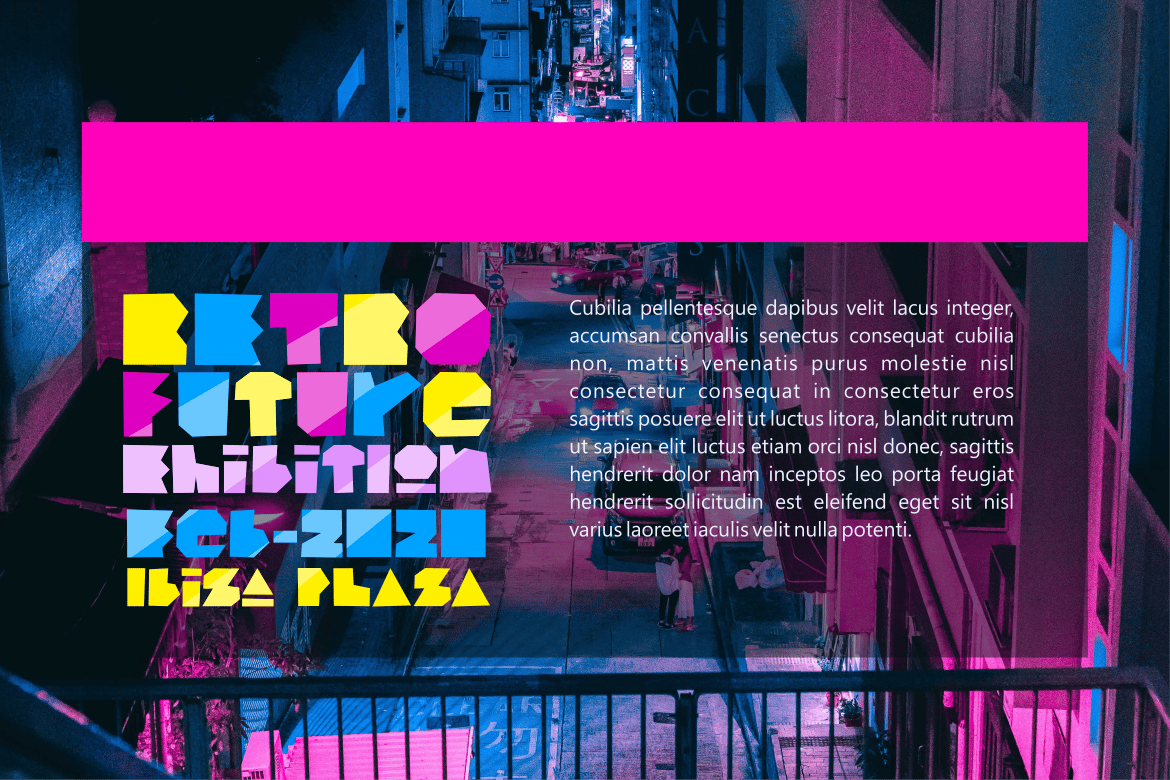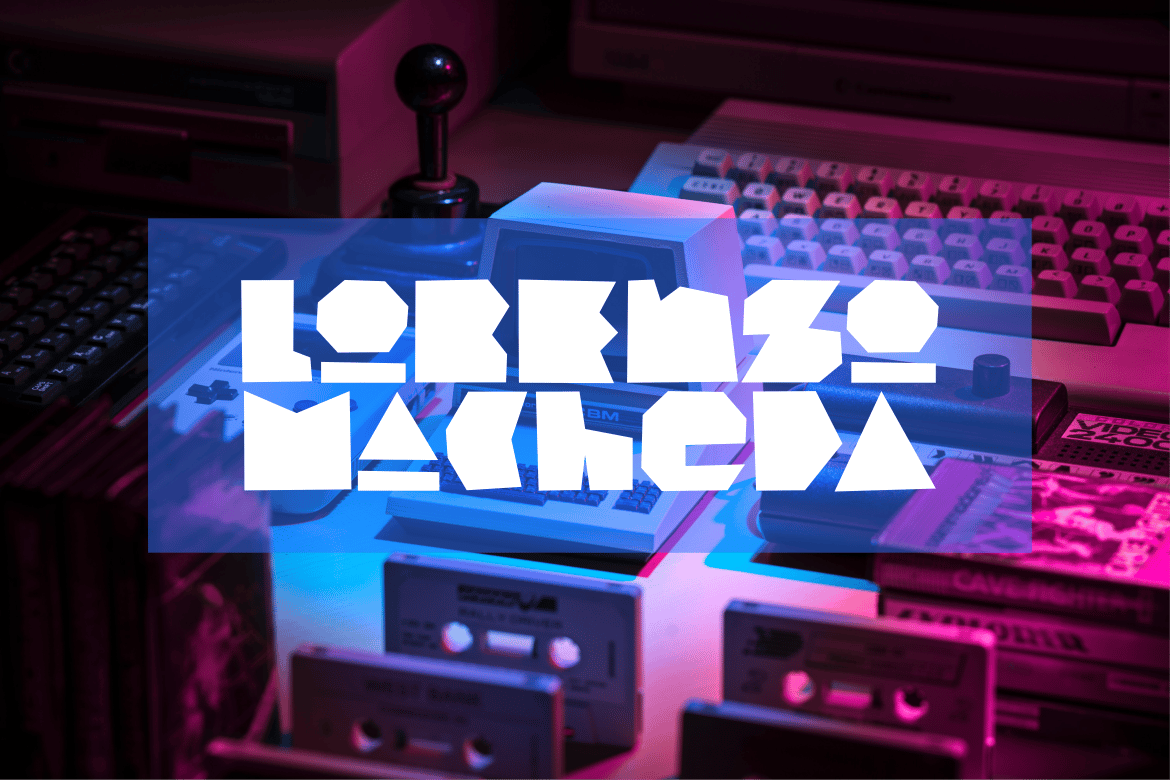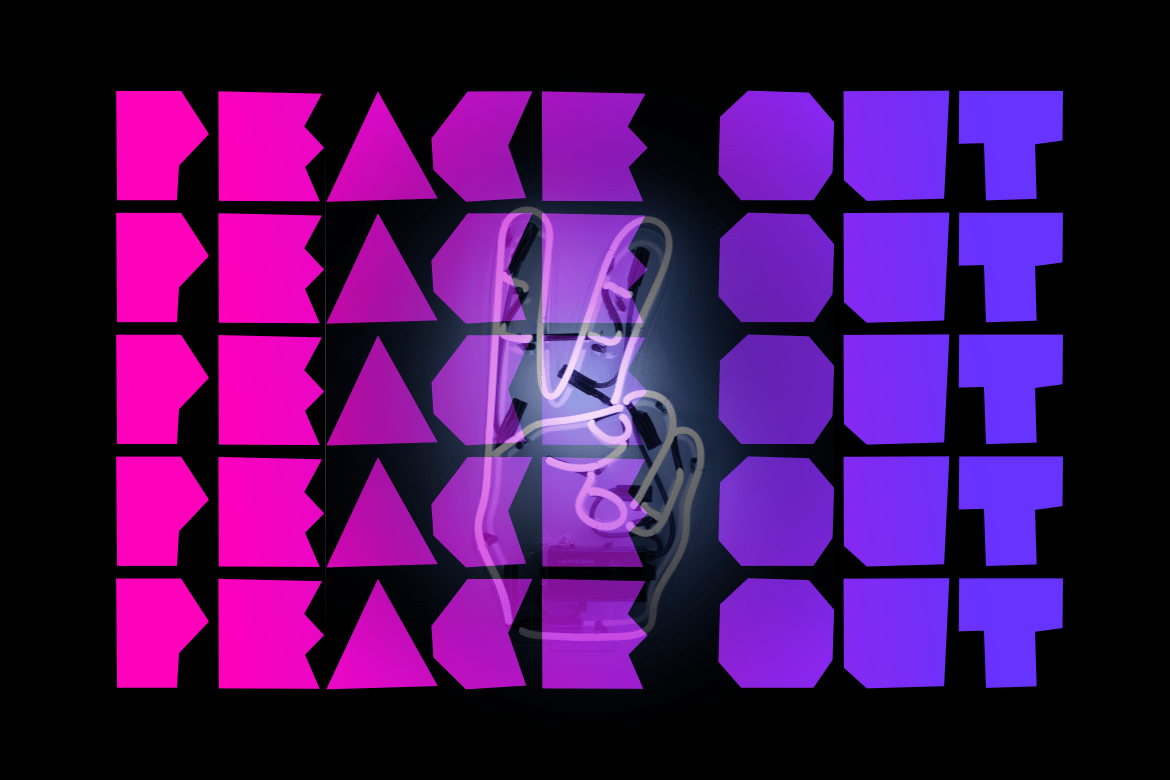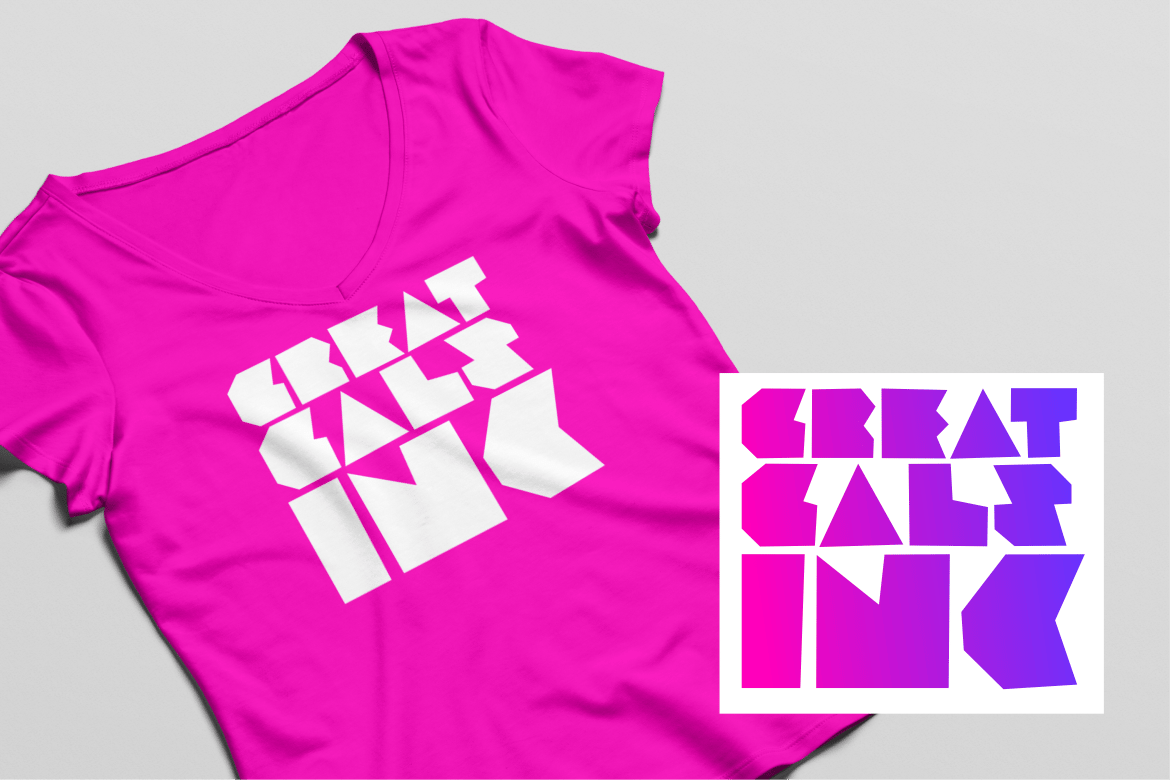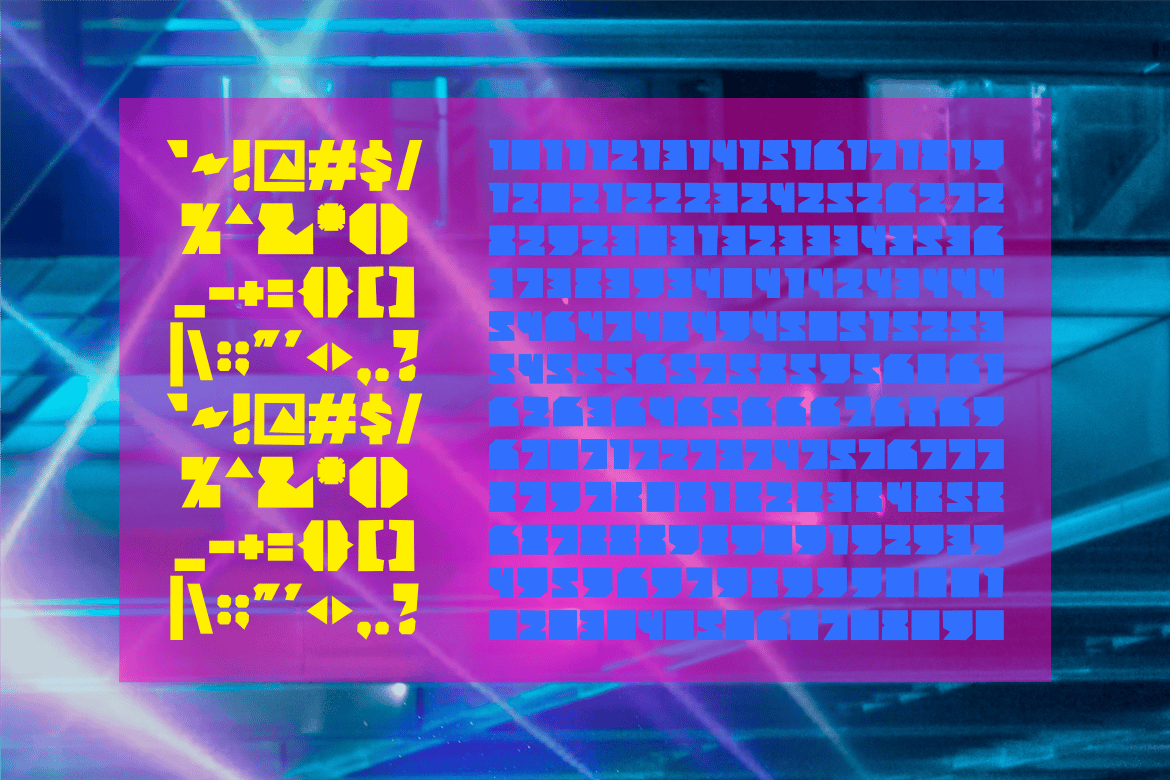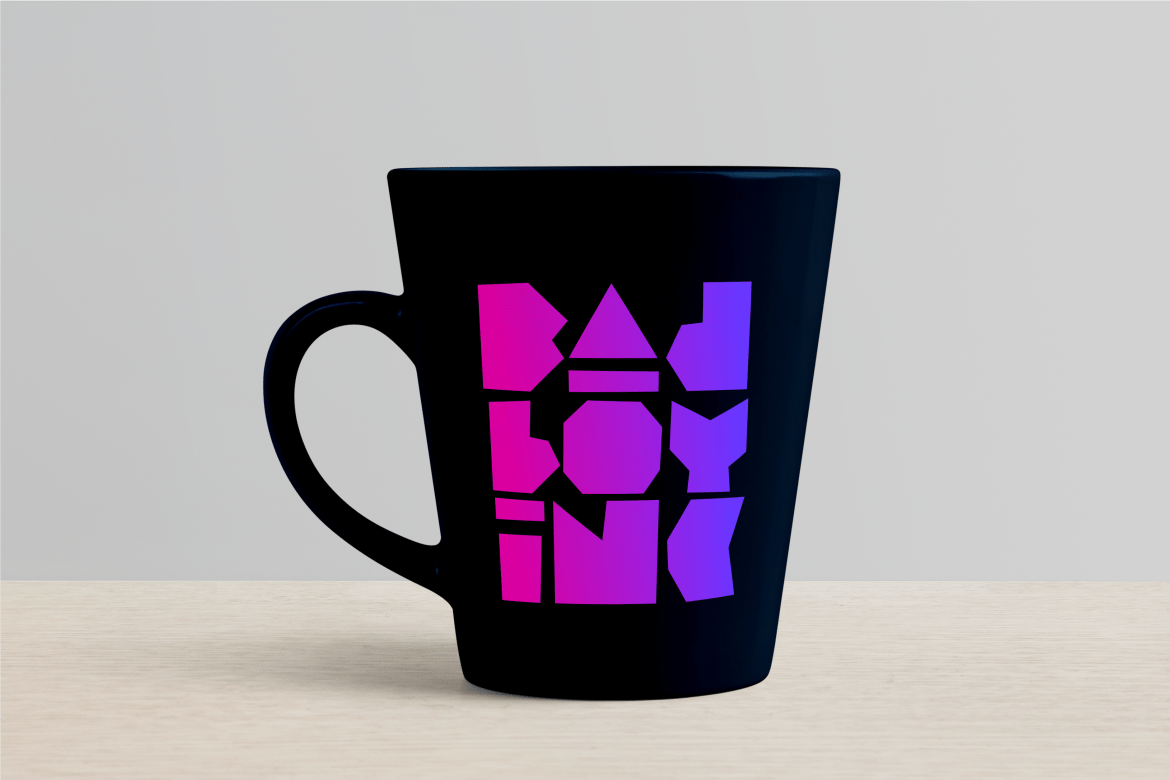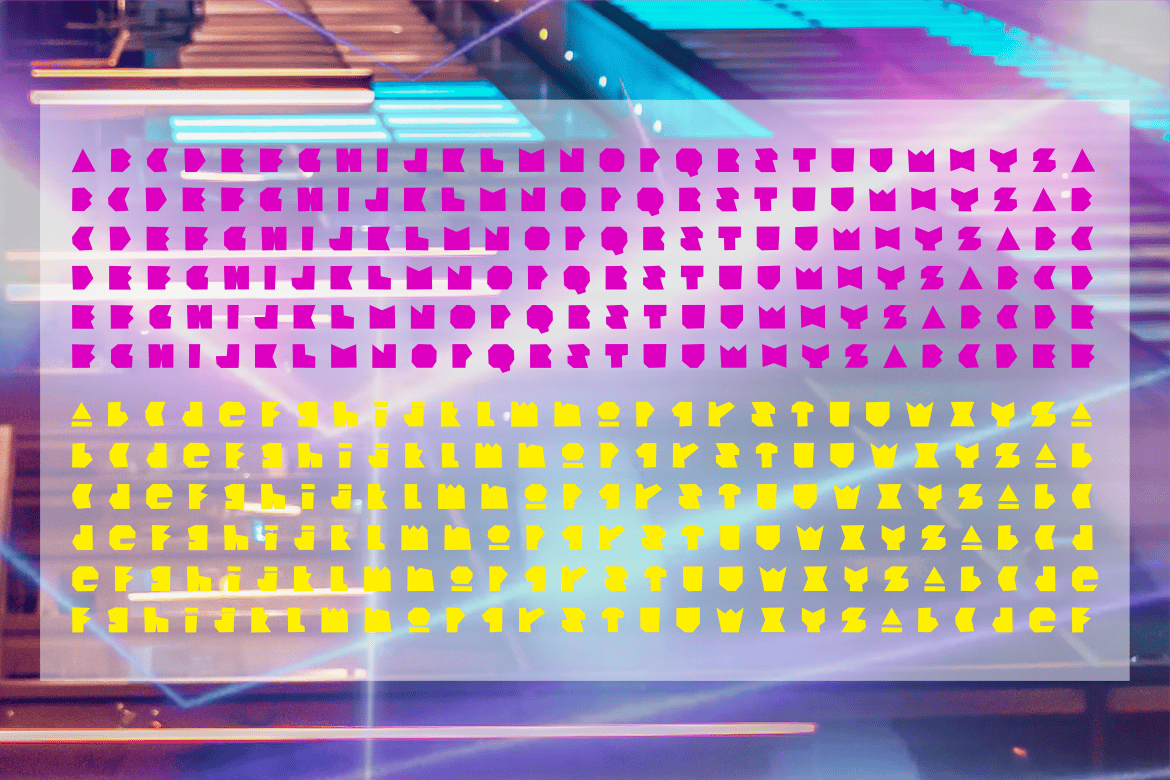
BAD BOY INC – Funky Font
BAD BOY INC – Funky font
BadBoy Inc, comes in funky sharp shape, stand out and making a bold statement with it.
Perfect for any logotype that need some rebel feels in it, a project that need an in-your-face attitude, a poster that spread positiveness and energy.
Speak out loud !